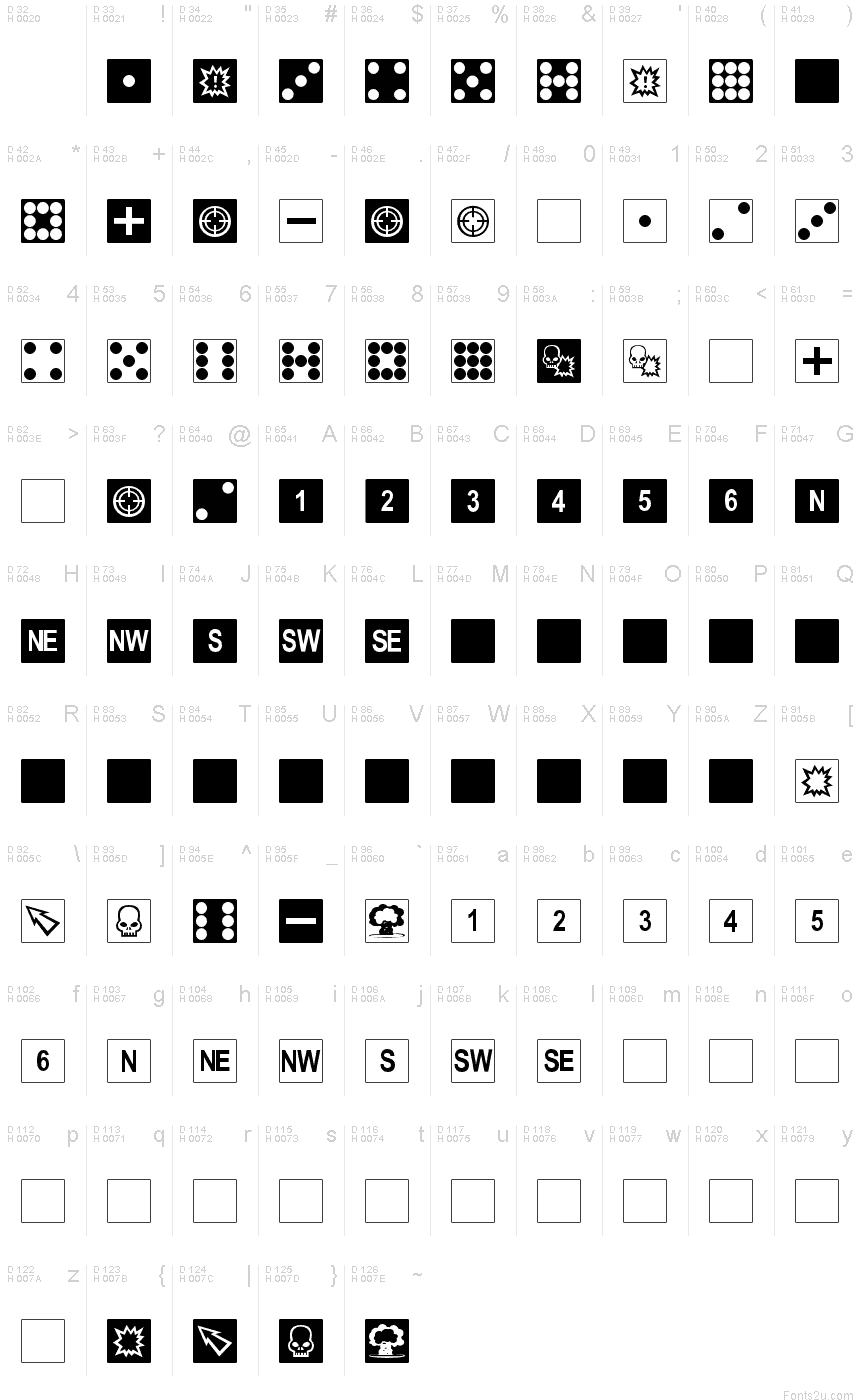
Hexahedron by Neale Davidson of Hexahedron is a free sign dingbat font built around boxed directional labels and route-like markers. Its forms are blunt and orderly. Large sans serif letters and numerals sit inside squared frames, giving the set the look of practical wayfinding hardware.
Navigation and travel themes make these symbols useful for game maps, event signage, and transport-themed posters. The crisp enclosures can also become interface buttons or diagram labels, especially in projects that borrow from control panels and public information systems. Because the repeated frames resemble individual sign plates, designers can treat each symbol as a small piece of illustrated equipment rather than ordinary text.